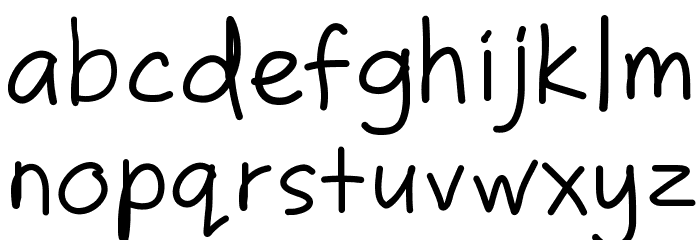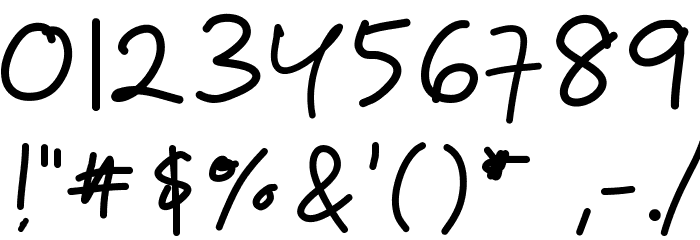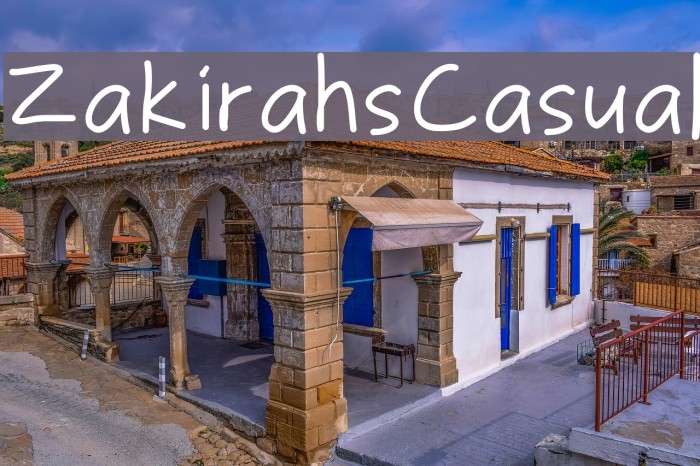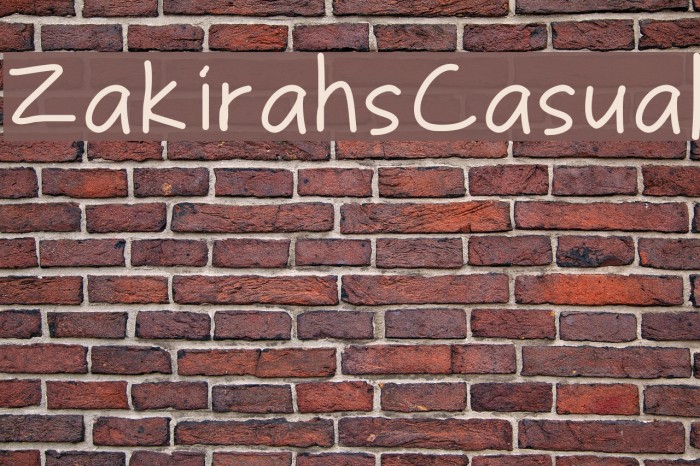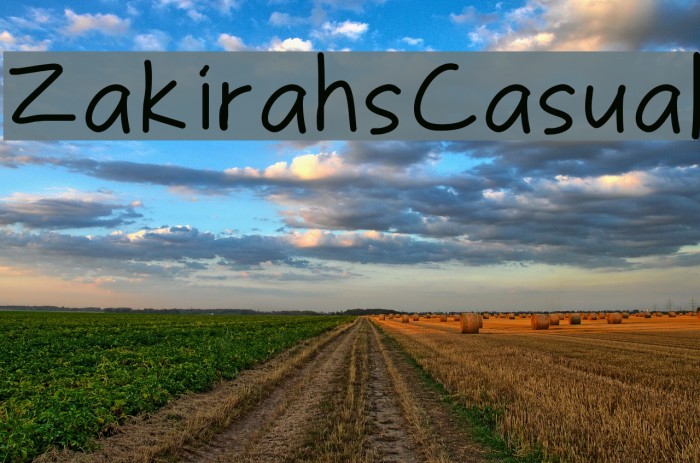
ZakirahsCasual Font
This font exudes a casual and friendly handwritten style, characterized by its playful and informal appearance. The letters are slightly uneven, mimicking the natural flow of handwriting, which adds a personal touch to any text. The strokes are smooth and rounded, giving it a warm and approachable feel. The uppercase and lowercase letters maintain a consistent style, with a slight slant that enhances its casual nature. The numbers and special characters are well-integrated, maintaining the same handwritten aesthetic. This font is perfect for projects that require a personal, human touch, such as greeting cards, invitations, or personal branding.
A casual, handwritten font with a playful and informal style.
- Proposed Projects: Ideal for greeting cards, invitations, personal branding, and informal communications.
- Category: Handwritten
- Overall Style: Casual
- Use Case: Headlines, Informal text, Personal projects